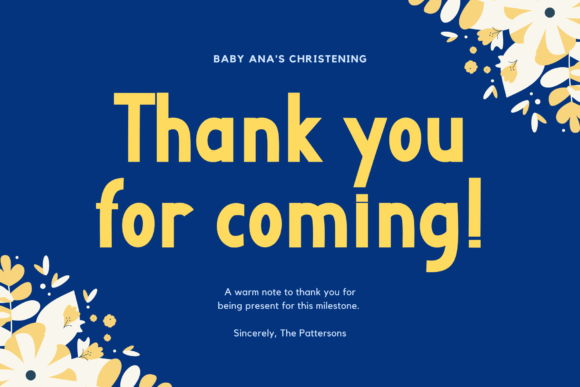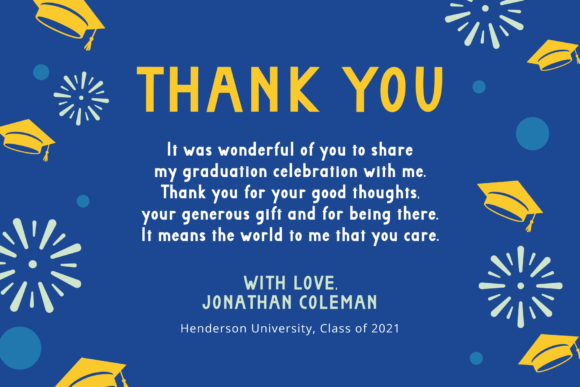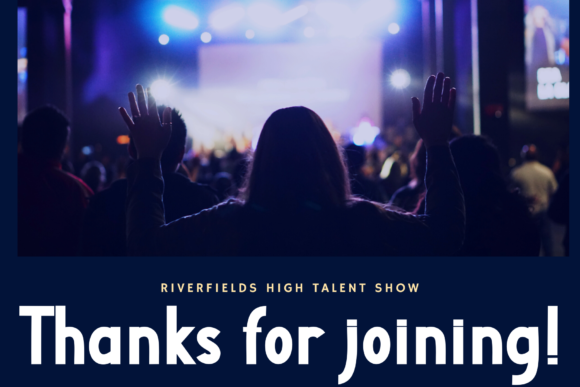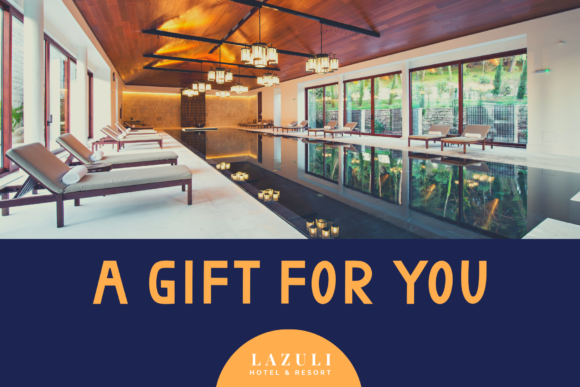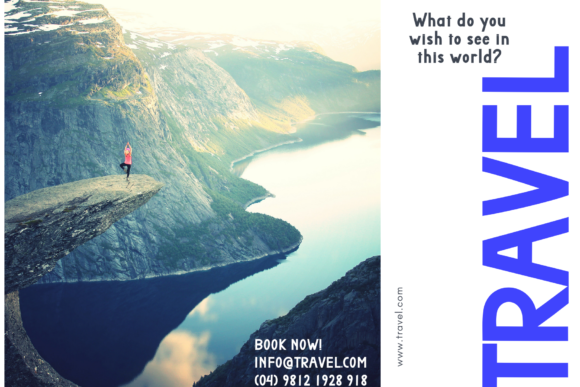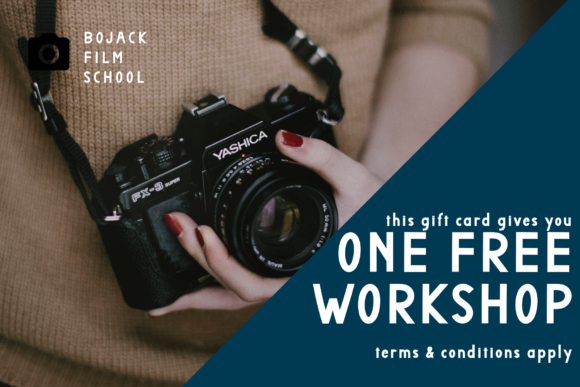
Introduction to Mahartha Font
As a designer, there’s nothing quite like the thrill of bringing a creative project to life. Whether it’s a cartoon, a children’s game, or a fun social media graphic, the right font can make all the difference. That’s why we’re excited to share with you the Mahartha Font, a chunky and fun display font that’s sure to add a lovely touch to any design.
Imagine you’re working on a design project and you need a font that’s both playful and high-quality. You search high and low for the perfect font, but everything seems to be either too serious or too boring. That’s where the Mahartha Font comes in – a free download that’s perfect for designers who want to add a creative twist to their work. With its transparent background and versatility, this font is a valuable resource for any design project.
Key Features of Mahartha Font
- High-quality design resource for creative projects: Mahartha Font offers a unique and stylish typography that can elevate any design.
- Transparent background: The font’s transparent background makes it easy to overlay on any image or design, providing a seamless integration.
- Unique characteristics: Mahartha Font features a distinctive and modern design, making it perfect for creative projects that require a unique touch.
- Perfect for digital and print projects: Mahartha Font is suitable for use in both digital and print projects, including logos, branding, and marketing materials.
Honest Review: Mahartha Font
I recently stumbled upon the Mahartha Font while searching for high-quality design resources for a creative project. The best part? It’s a free download!
Here are the things that I really liked about Mahartha Font: ✨
- Unique aesthetic: The font has a distinctive, elegant feel to it that’s perfect for a variety of design applications.
- High-quality glyphs: The font includes a wide range of glyphs, including Latin, Cyrillic, and Greek alphabets, making it a great resource for designers working on international projects.
- Transparent background: The font comes with a transparent background, which makes it easy to use in a variety of design contexts.
- Limited font weights: The font only comes in a few different weights, which may limit its use in certain design applications.
- No italics: Unfortunately, the font does not include italics, which may be a drawback for designers who prefer to use italic text in their designs.
Overall, I’m really impressed with the Mahartha Font. It’s a great resource for designers looking for a high-quality, free font to use in their creative projects.
The Mahartha Font is a high-quality, free download design resource ideal for creative projects. Its unique style and transparent background make it perfect for adding a touch of elegance to your work.
Getting the Most Out of Mahartha Font
To get the most out of Mahartha Font, experiment with different font sizes, colors, and styles. You can also combine it with other design elements to create a unique look.
The Mahartha Font is perfect for creative projects such as logo design, branding, and digital art. Its unique style and transparent background make it ideal for adding a touch of elegance to your work.